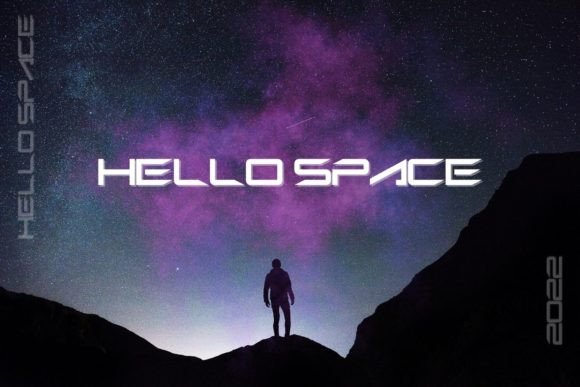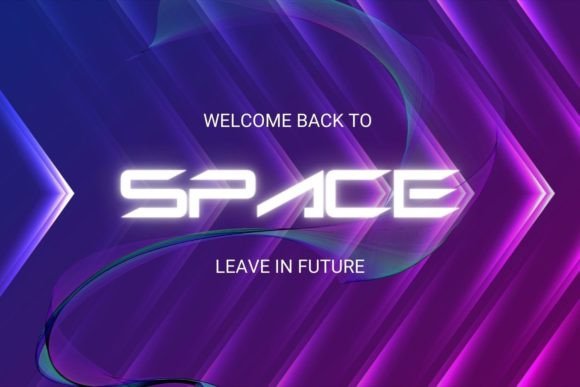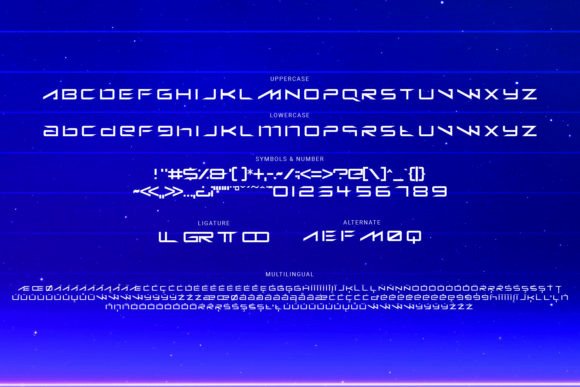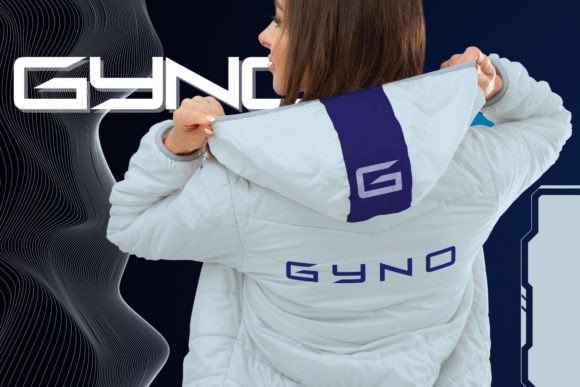
Introduction to Fanlare Font
Have you ever been stuck in front of a blank design canvas, struggling to find the perfect font to bring your creative vision to life? It’s a familiar feeling for many designers, but one that’s often solved with the discovery of a high-quality design resource like the Fanlare Font. This cool and modern display font is a game-changer for anyone working on innovative projects that require a sci-fi touch.
Whether you’re designing a futuristic logo, a cutting-edge website, or a creative project that demands a bold and futuristic feel, the Fanlare Font is an invaluable addition to your design toolkit. With its sleek and modern appearance, this free download is perfect for designers looking to add a touch of high-tech sophistication to their designs.
Key Features of Fanlare Font
- High-quality design resource perfect for creative projects
- Unique, modern design that can add a touch of elegance to any project
- Perfect for use in digital and print media, including websites, social media, and marketing materials
Honest Review: Fanlare Font
I recently stumbled upon the Fanlare Font and I must say it’s a great addition to any designer’s toolkit. This font is perfect for those looking for a high-quality design resource to elevate their creative project.
- ✨ Clean and modern design aesthetic, making it suitable for a wide range of applications.
- ⚠️ The font is limited to a single style, which may not be suitable for designers who prefer a variety of font weights and styles.
Overall, I’m impressed with the Fanlare Font. While it has some limitations, it’s a great resource for designers looking for a high-quality, free font to use in their creative projects. I would definitely recommend giving it a try.
For optimal results, use the Fanlare Font in conjunction with a high-quality design resource, such as a high-resolution image or a well-designed template. Experiment with different font sizes, colors, and styles to create a unique and visually appealing design.
The Fanlare Font is a versatile design resource that can be used in a variety of creative projects, including digital art, graphic design, and even web design. Its transparent background makes it easy to overlay on top of other elements, creating a seamless and professional-looking design.